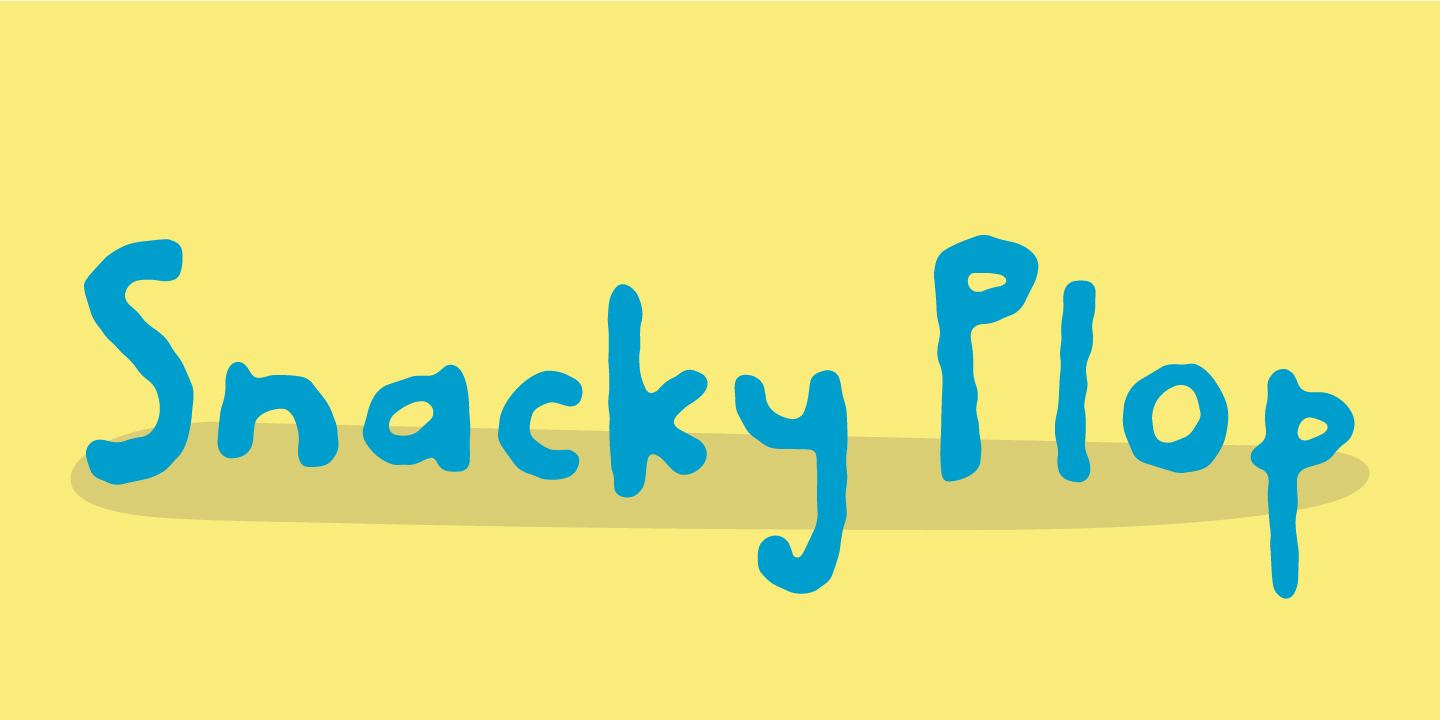
Snacky Plop Font is perfect for snack food packaging, candy brands, children's product labels, playful restaurant menus, ice cream shops, toy company branding, comic book designs, casual gaming interfaces, and any project requiring typography with irresistible fun appeal and delightfully bouncy aesthetics.
What makes Snacky Plop Font exciting is its joyful bounciness that captures the pure happiness and satisfying crunch of favorite snack foods with playful letterforms that seem to pop and bounce with infectious energy and carefree delight. This delightful typeface embodies the simple pleasures of snacking with rounded, bubbly characters that evoke the satisfying texture and cheerful experience of munching on delicious treats. The font's playful character and appetizing appeal make it perfect for brands that celebrate fun, flavor, and the irresistible joy of indulgent snacking experiences.
The Snacky Plop Font family includes regular and bold weights, featuring complete uppercase and lowercase alphabets, numerals, punctuation marks, and playful snack-inspired design elements. The font maintains consistent bouncy charm throughout all weights while ensuring excellent readability for both appetizing headlines and fun product descriptions in food and entertainment contexts.
Whether you're designing for snack food companies, creating children's product packaging, or developing playful branding with appetizing aesthetics, Snacky Plop Font Free Download brings unmatched fun energy and irresistible charm to your projects. This delightful typeface transforms ordinary text into mouth-watering visual experiences that instantly communicate flavor, fun, and the simple joy of delicious snacking. The font's playful character makes it ideal for food brands, entertainment companies, and children's products. Download this exceptional font today and bring the infectious joy of snack time to your design projects with authentic playful energy and appetizing visual appeal.